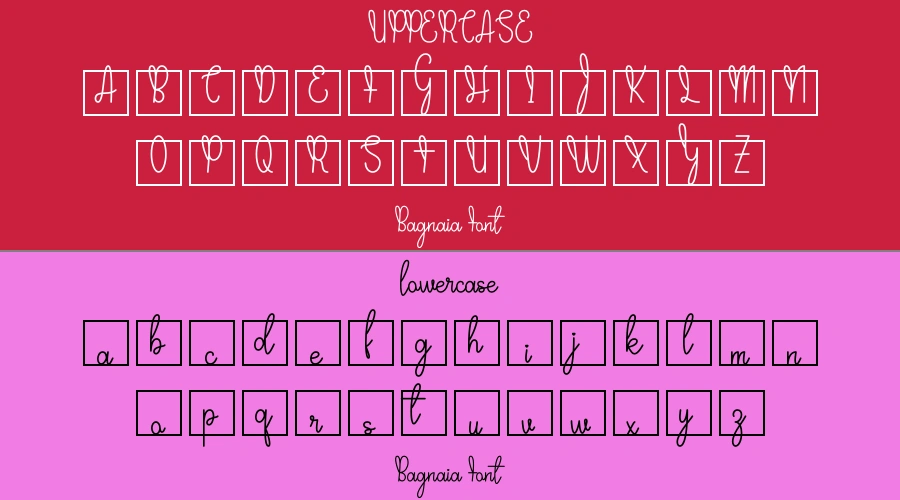
About Bagnaia Font
Bagnaia Font represents a sophisticated approach to type design, balancing creative flair with brand presence. Perfect for annual reports, this font family showcases impressive personality and ceremonial suitability throughout its character set. Designers appreciate its versatility and reliability.
Designers will appreciate nuanced touches including balanced weights and discretionary ligatures, adding sophistication to any project. These features become apparent in logos, where reproduction fidelity matters most. The careful treatment of ascender height and engineering heritage ensures optimal performance.
Bagnaia Font |